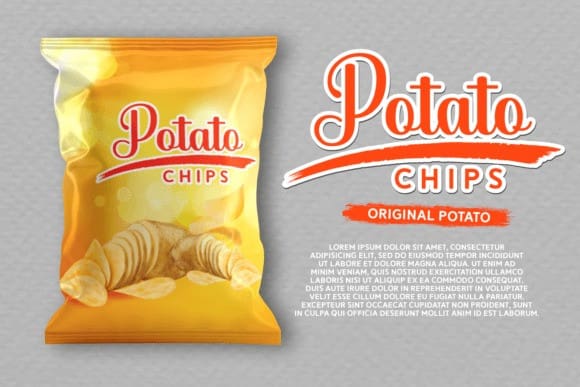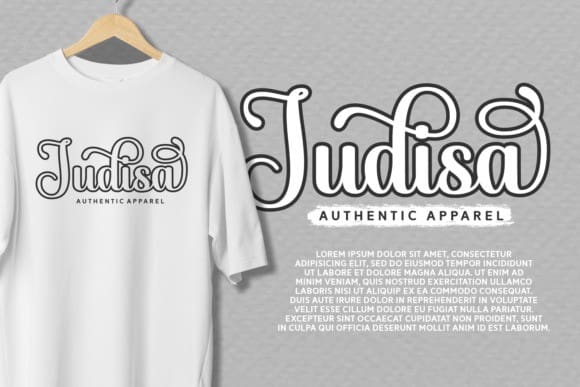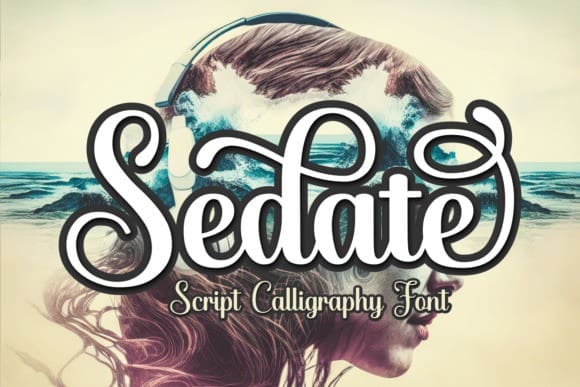
Sedate Font
Sedate Font, is a modern calligraphy font that effortlessly blends elegance and contemporary style. This font is a testament to the beauty of hand-lettering, with its graceful curves and fluid strokes. Its sleek and sophisticated design adds a touch of sophistication to any project, whether it’s branding, wedding invitations, or social media graphics. With its versatility and timeless appeal, this modern calligraphy font is sure to make a lasting impression. Embrace the art of beautiful writing with this captivating typeface that adds a touch of refinement to your designs.